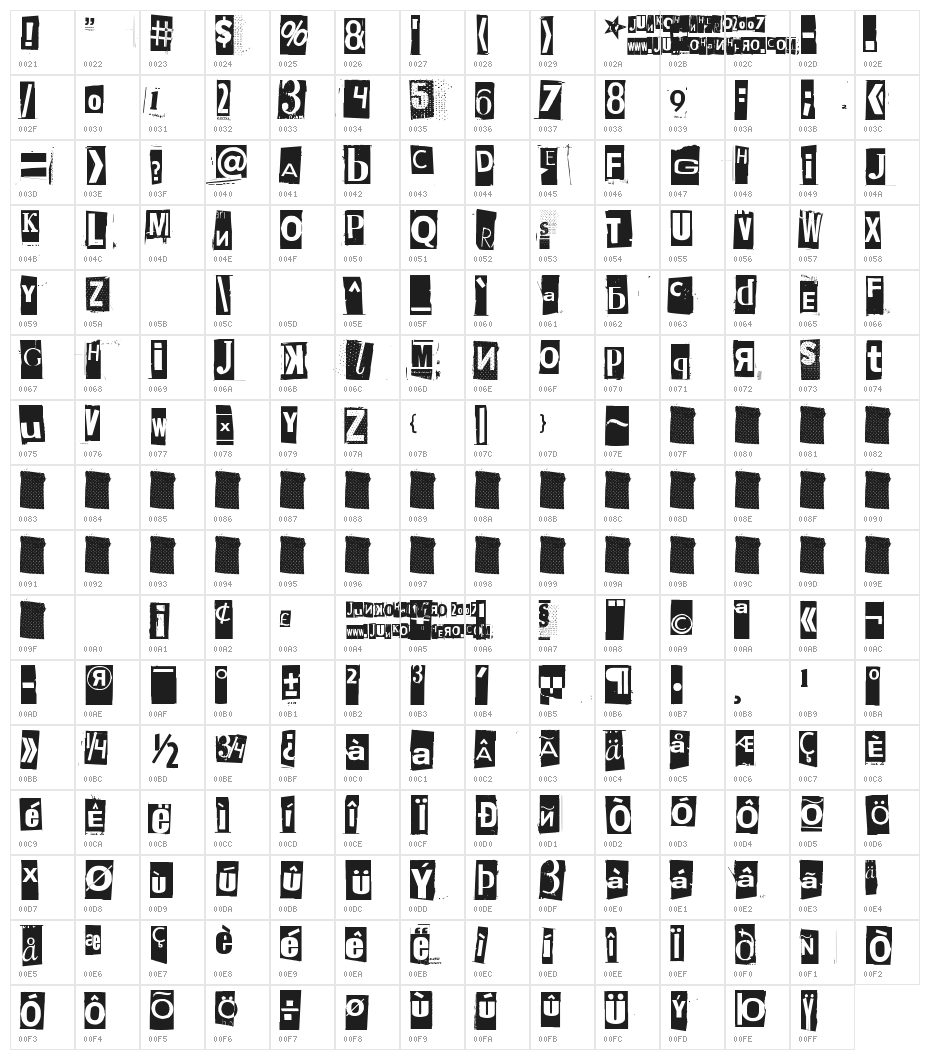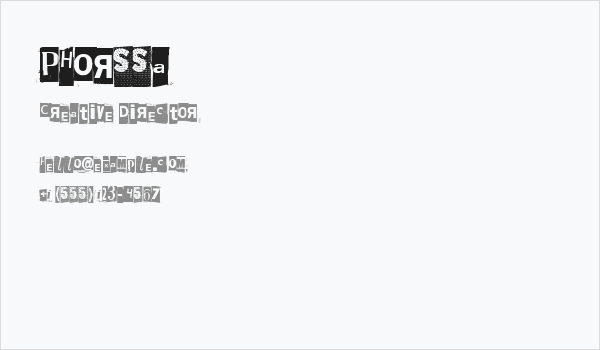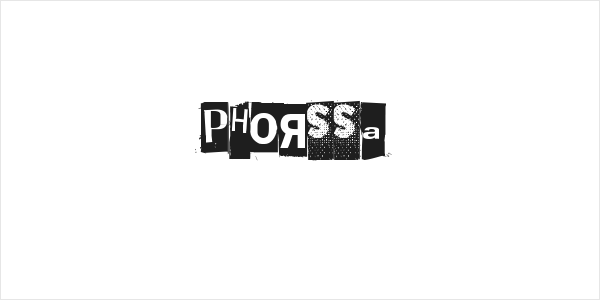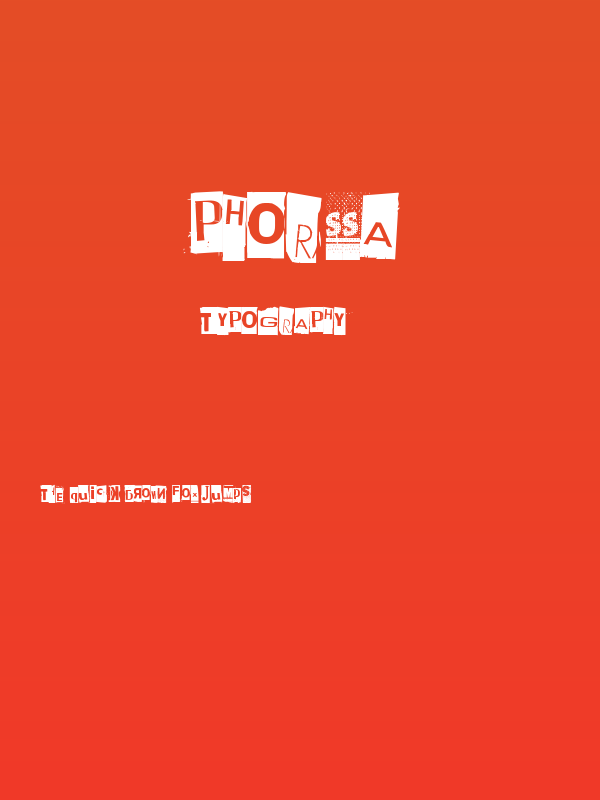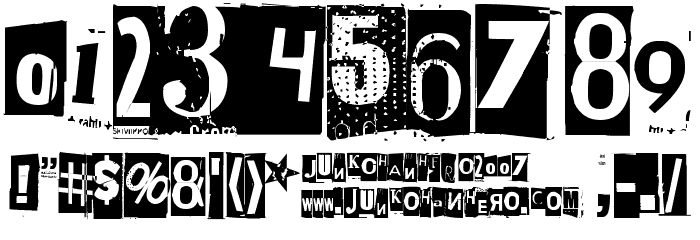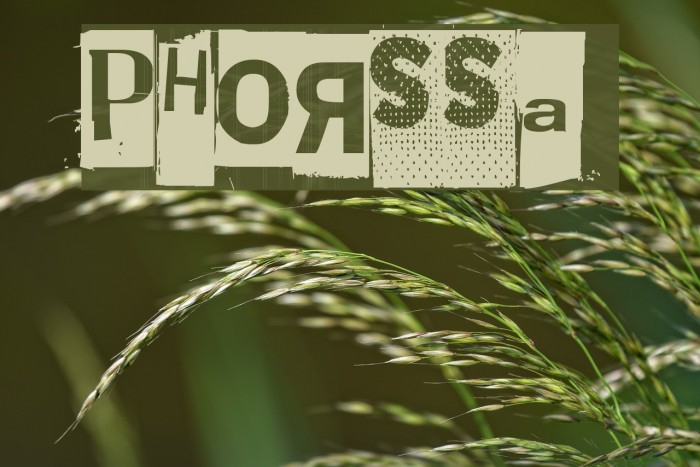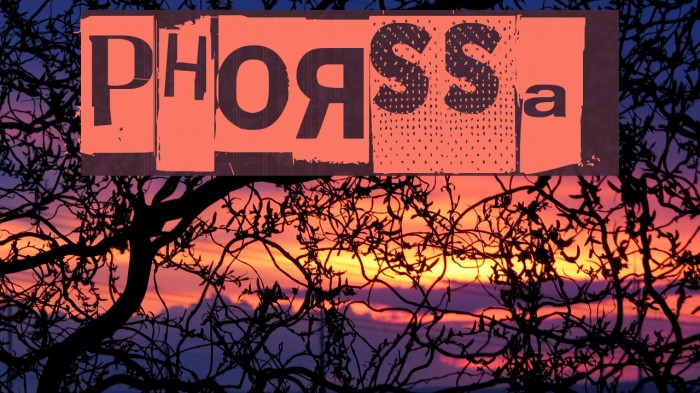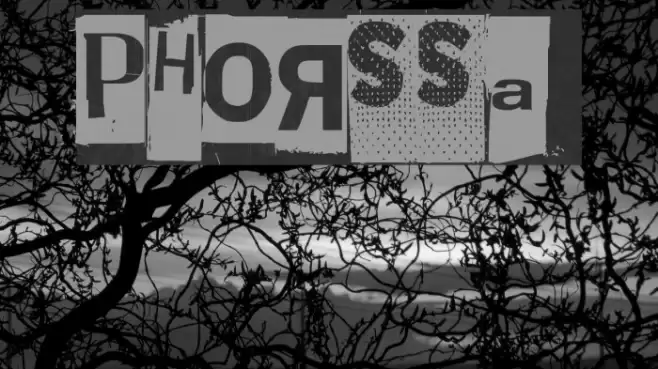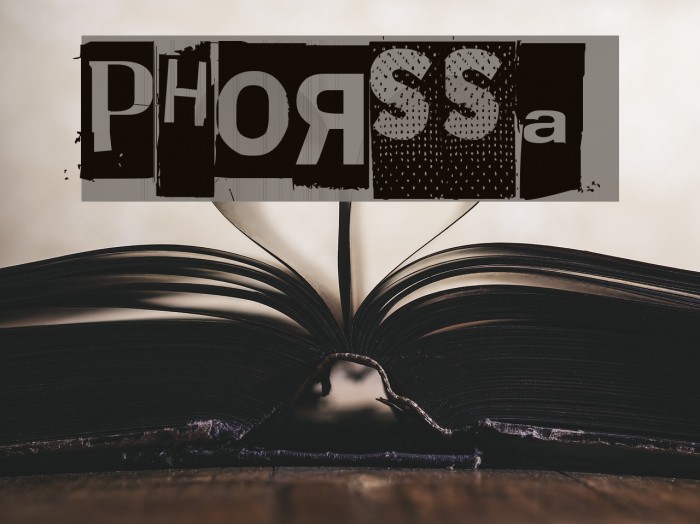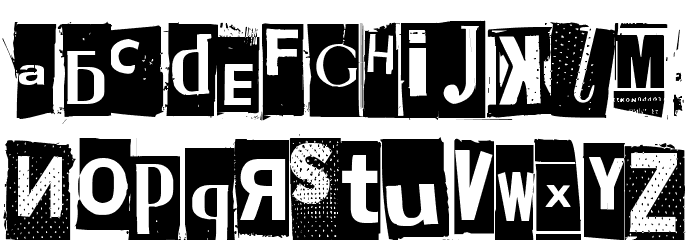
Phorssa Font
Phorssa Description
This font features a unique, eclectic style that mimics the appearance of letters cut from magazines or newspapers, often associated with ransom notes. Each character is distinct, with varying sizes, shapes, and orientations, creating a chaotic yet artistic look. The letters are set against a black background with white text, enhancing the contrast and making each character stand out. The font includes a full set of uppercase and lowercase letters, numbers, and a variety of special characters. Its irregular and bold design makes it ideal for projects that require a strong visual impact.
| Use Case | Headlines, Posters, Artistic Designs |
| Proposed Projects | Ideal for creative projects such as posters, album covers, or any design requiring a bold, unconventional look. |